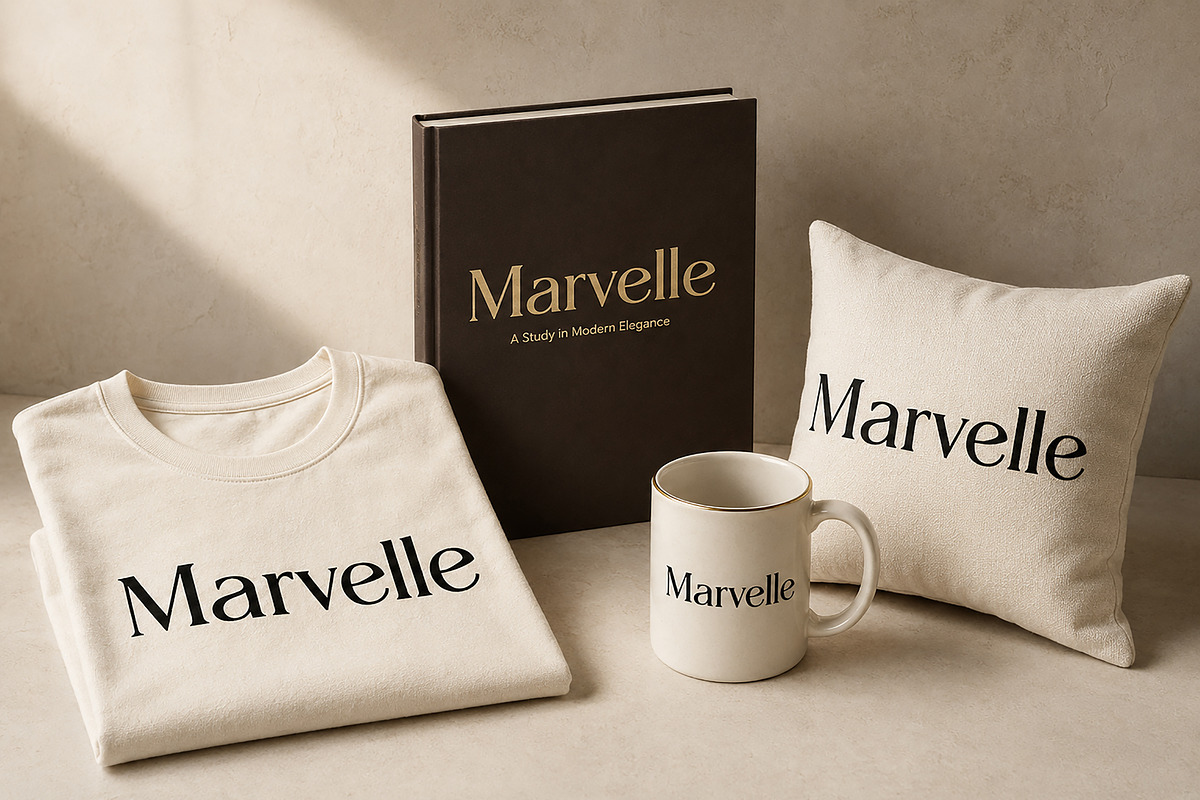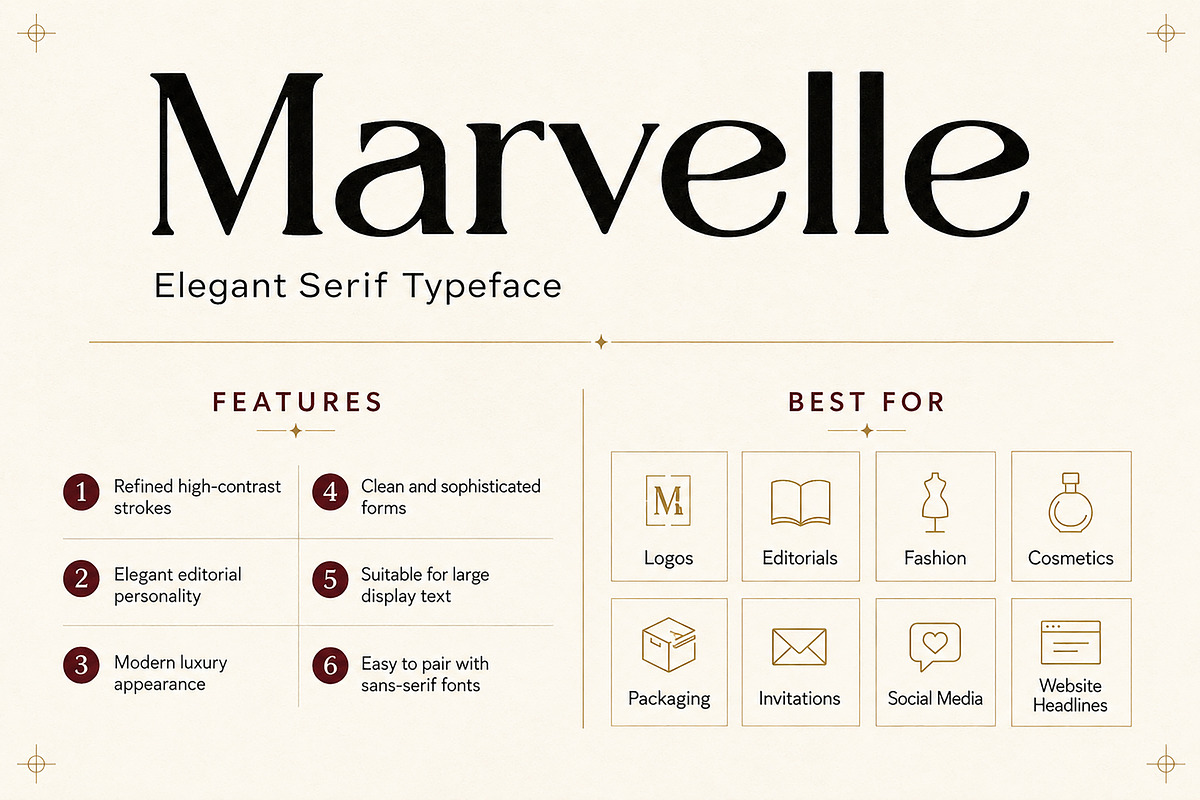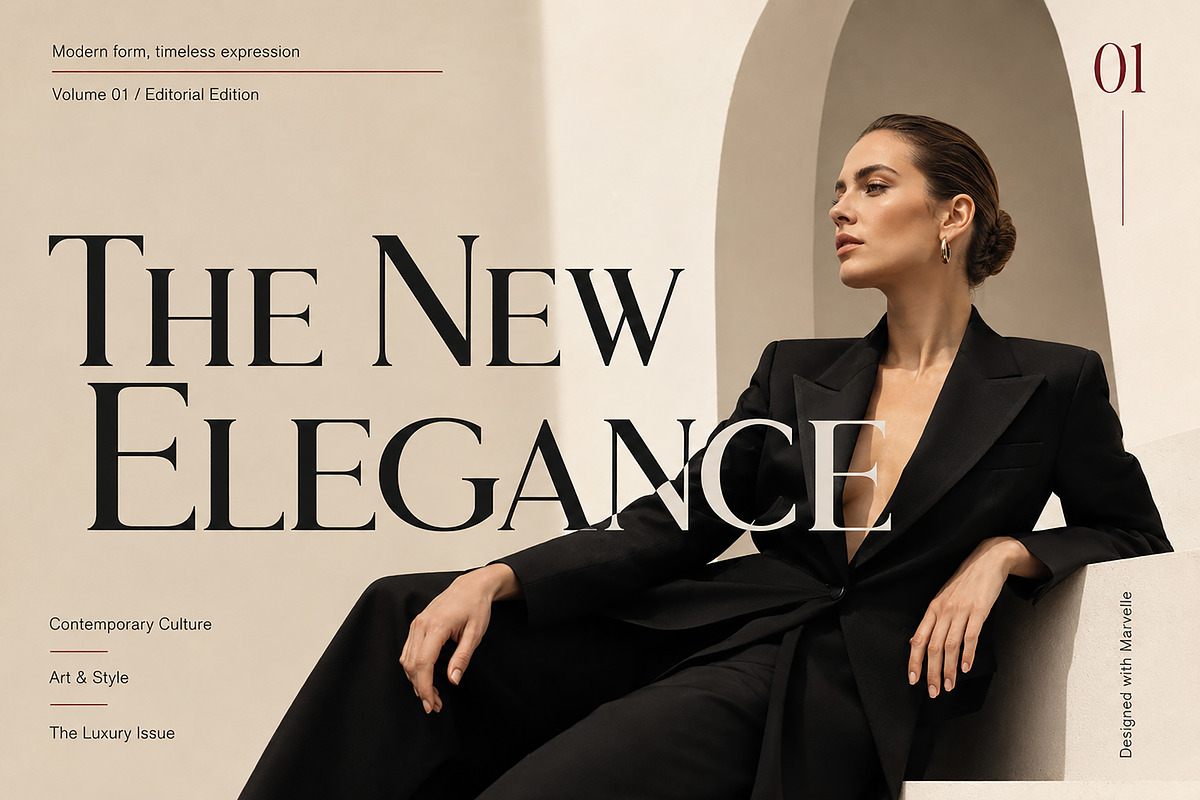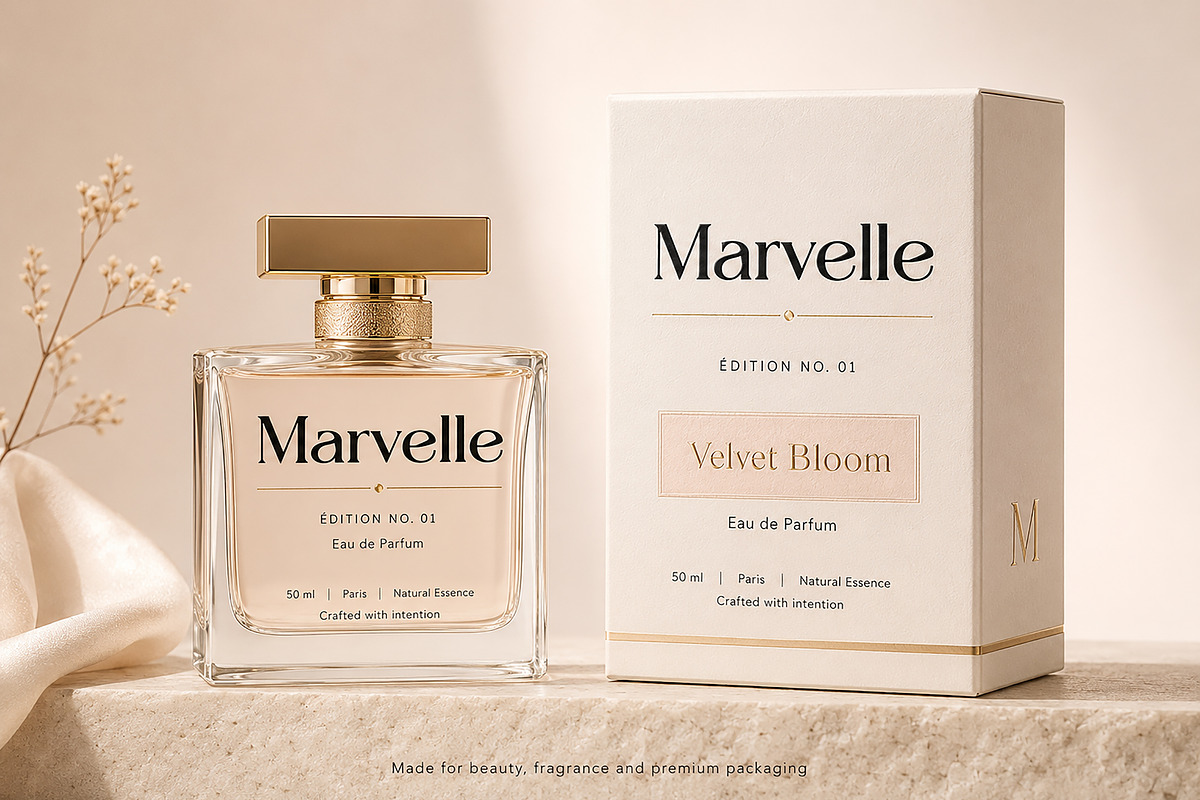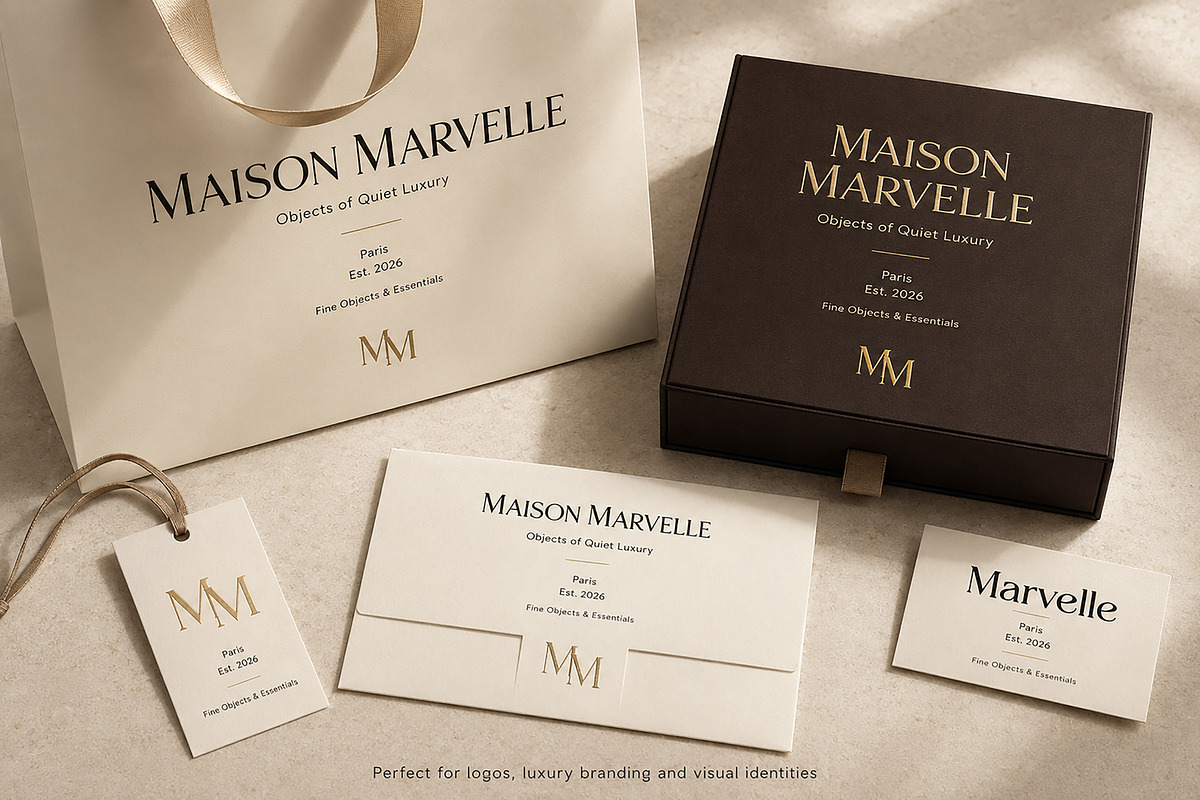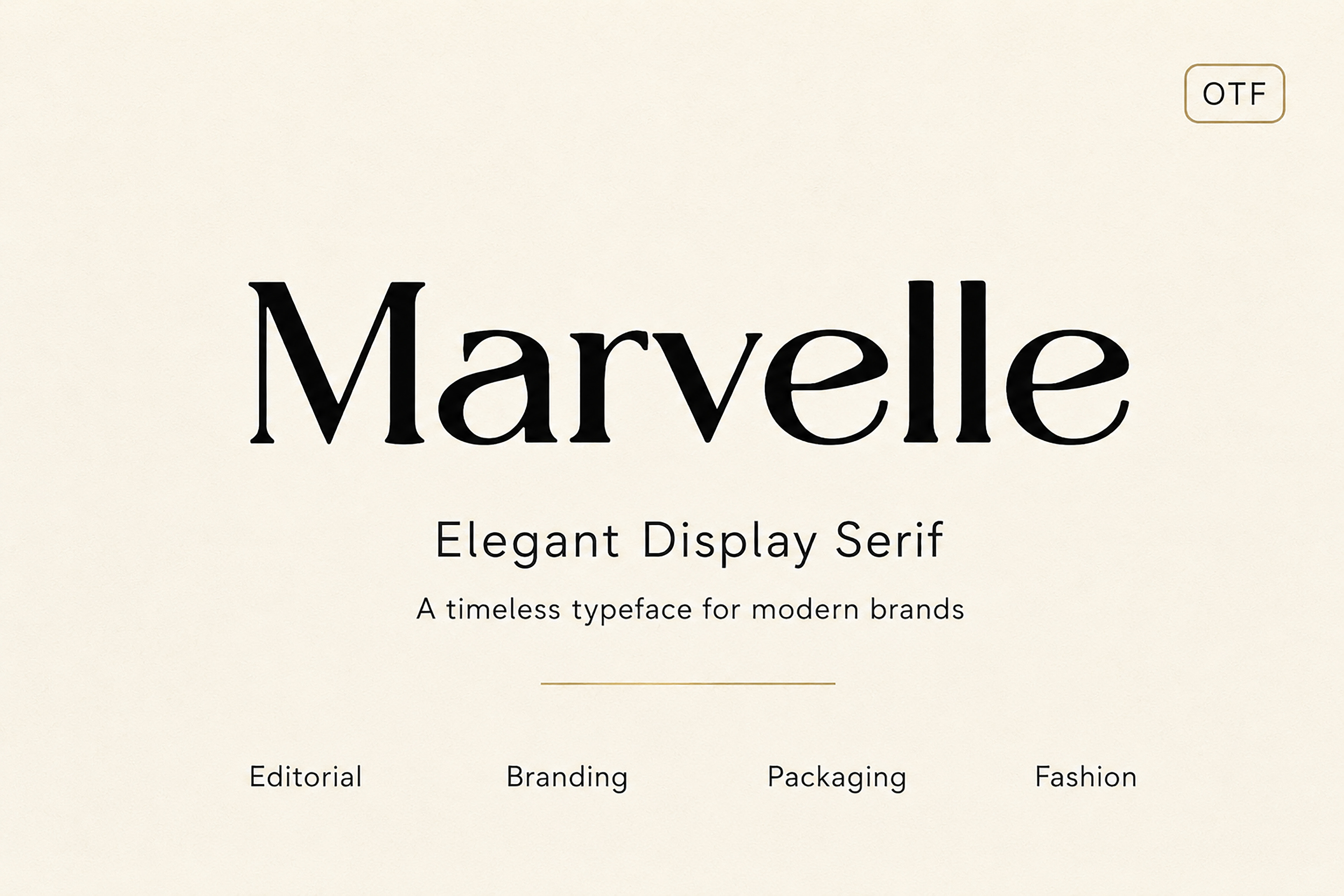
Marvelle – Elegant Luxury Serif Font
Introducing Marvelle, an elegant display serif font created for sophisticated and memorable designs. With refined high-contrast strokes, graceful curves, and a timeless editorial character, Marvelle brings a premium appearance to both modern and classic creative projects.
Marvelle is especially suitable for luxury branding, fashion editorials, beauty and cosmetic packaging, perfume labels, logos, magazine headlines, invitations, social media graphics, and website titles. Its distinctive letterforms work beautifully at large sizes and pair effortlessly with clean sans-serif fonts.
Whether you are creating an elegant brand identity, premium packaging, or a striking editorial layout, Marvelle gives your work a refined and luxurious visual presence.
Logo and wordmark design
Luxury brand identities
Fashion and editorial layouts
Beauty and cosmetic branding
Perfume packaging
Magazine covers and headlines
Wedding invitations
Product labels and packaging
Website headlines
Book covers
Apparel and merchandise
Elegant high-contrast letterforms
Refined serif details
Modern luxury appearance
Strong editorial personality
Clean and sophisticated forms
Ideal for large display typography
Easy to pair with sans-serif fonts
Suitable for both print and digital projects